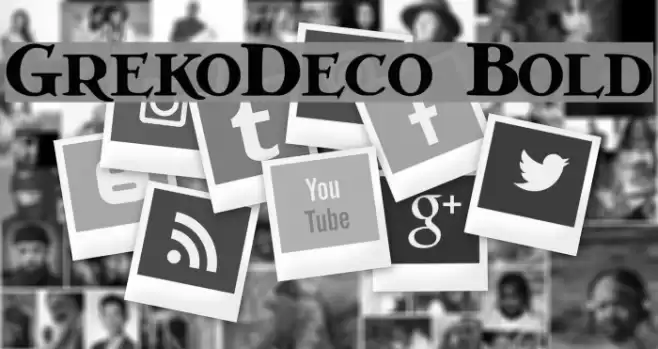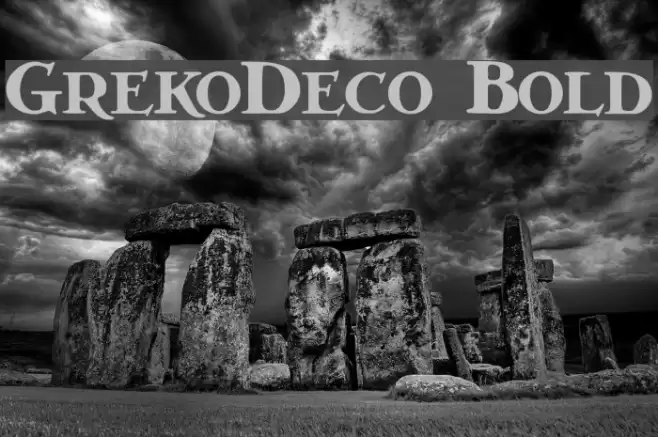
GrekoDeco Bold Font
GrekoDeco Bold Description
This font features a bold and striking design with a strong presence. Its characters are crafted with a high contrast between thick and thin strokes, giving it a dynamic and impactful appearance. The serifs are pronounced, adding a touch of elegance and sophistication. The overall style is reminiscent of classic serif fonts but with a modern twist, making it suitable for both traditional and contemporary designs. The numbers and special characters maintain the same boldness and clarity, ensuring consistency across all elements.
A bold serif font with high contrast and elegant serifs from Retro fonts.
- Proposed Projects: Ideal for headlines, posters, branding, and editorial design where a strong and sophisticated look is desired.
- Contrast: High
- Overall Style: Classic